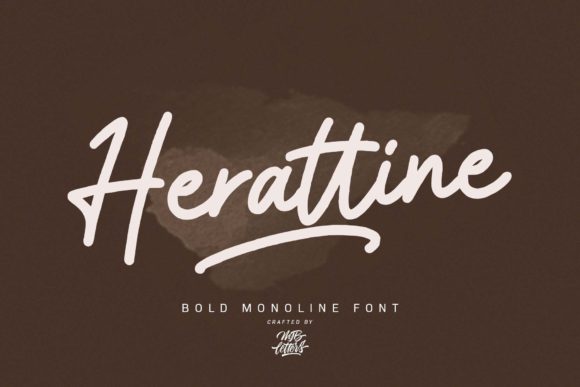
Introduce yourself to Herattine Font, a script font family born from the creative mind of MJB Letters. This captivating font will add a dash of romance and sweetness to your designs, entwining characters that waltz gracefully along the baseline. Immerse yourself in Herattine's luxurious aura and elevate your projects to new heights of elegance. Whether you're crafting logos, invitations, or social media posts, Herattine's enchanting presence will leave a lasting impression.
With Herattine, your designs will exude a sense of timeless beauty. Its graceful curves and delicate details evoke a feeling of nostalgia, while its modern twist keeps it fresh and relevant. This font is a versatile chameleon, adapting seamlessly to any project, from vintage-inspired designs to sleek, contemporary creations. Unleash your creativity and let Herattine's magic transform your words into works of art.
Herattine is more than just a font; it's an experience. Its whimsical nature will ignite your imagination and inspire you to create designs that captivate and enchant. Let Herattine be your creative companion, guiding you through a world of beauty and limitless possibilities. Embrace the allure of Herattine and watch as your designs blossom into masterpieces.